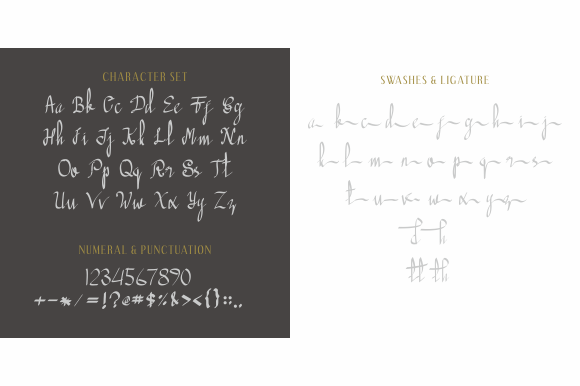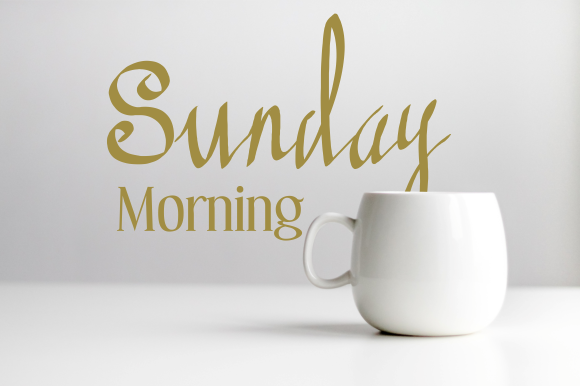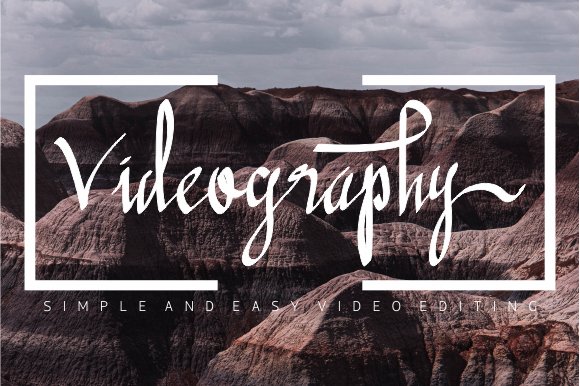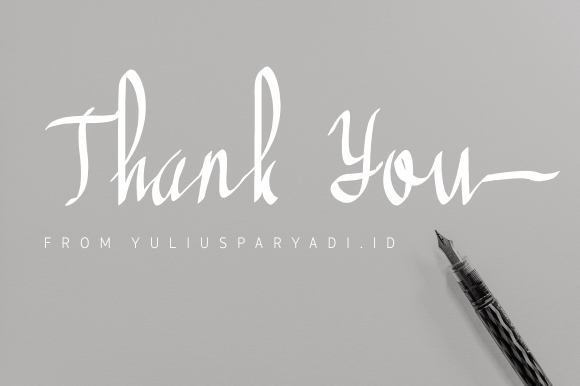
Gliancha Font: Elevate Your Designs with a Delicate and Distinct Handwritten Style
Are you tired of using the same old fonts in your designs? Do you want to add a touch of elegance and sophistication to your projects? Look no further than the Gliancha Font, a delicate and distinct handwritten font that’s perfect for crafters and designers alike. In this article, we’ll take a closer look at the Gliancha Font, its features, and how you can use it to bring your most creative ideas to life.
What is Gliancha Font?
Gliancha Font is a beautifully crafted handwritten font that’s designed to be incredibly relaxed and versatile. Its delicate strokes and distinct lettering make it perfect for a wide range of design projects, from branding and packaging to wedding invitations and crafts. Whether you’re a professional designer or a DIY crafter, Gliancha Font is sure to become a favorite in your collection.
Key Features of Gliancha Font
So, what makes Gliancha Font so special? Here are just a few of its key features:
- Delicate and distinct handwritten style: Gliancha Font has a unique, hand-crafted feel that’s perfect for adding a touch of elegance to your designs.
- Incredibly relaxed and versatile: This font is designed to be flexible and adaptable, making it perfect for a wide range of design projects.
- Easy to read and use: Despite its delicate style, Gliancha Font is incredibly easy to read and use, making it perfect for both print and digital projects.
How to Use Gliancha Font in Your Designs
So, how can you use Gliancha Font in your designs? Here are just a few ideas to get you started:
- Branding and packaging: Use Gliancha Font to add a touch of elegance to your brand’s packaging and marketing materials.
- Wedding invitations and crafts: This font is perfect for creating beautiful, handmade wedding invitations and crafts.
- Digital projects: Gliancha Font is also perfect for digital projects, such as social media graphics, blog posts, and more.
Why Choose Gliancha Font?
With so many fonts to choose from, why should you choose Gliancha Font? Here are just a few reasons:
- Unique and distinctive style: Gliancha Font has a unique, hand-crafted feel that’s sure to set your designs apart.
- High-quality design: This font is carefully crafted to ensure that it’s both beautiful and functional.
- Easy to use: Gliancha Font is incredibly easy to use, making it perfect for designers and crafters of all skill levels.
If you’re looking for a beautiful, delicate, and distinct handwritten font to elevate your designs, look no further than Gliancha Font. With its incredibly relaxed and versatile style, this font is perfect for a wide range of design projects, from branding and packaging to wedding invitations and crafts. So why wait? Add Gliancha Font to your collection today and start bringing your most creative ideas to life!
- Gliancha Font is a delicate and distinct handwritten font.
- It’s incredibly relaxed and versatile, making it perfect for a wide range of design projects.
- Gliancha Font is easy to read and use, making it perfect for both print and digital projects.
- It’s perfect for branding and packaging, wedding invitations and crafts, and digital projects.
By incorporating Gliancha Font into your design projects, you’ll be able to add a touch of elegance and sophistication that sets your work apart. So why wait? Try Gliancha Font today and see the difference it can make!